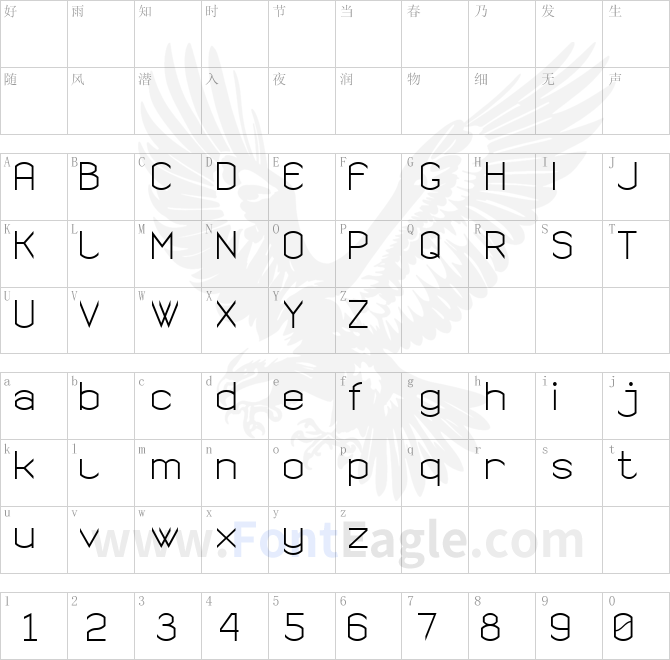
- Font name:Semi Rounded Sans Serif 7
- Font Subfamily ID:Style-7: Semi Rounded Sans Serif 7: 2015
- Font Full Name:Semi Rounded Sans Serif 7
- Postscript:SemiRoundedSansSerif7